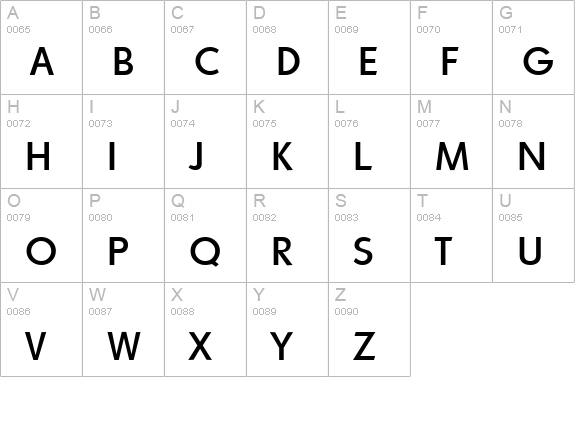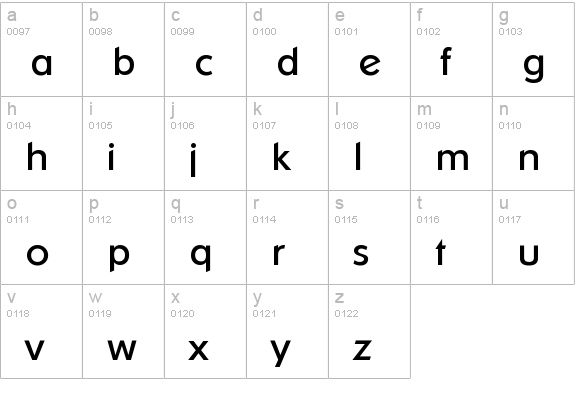
Sharnay Regular is the standard, neutral variant in the Sharnay typeface family \xE2\x80\x94 well suited to general body text, paragraphs, and standard typographic work.
Introducing Sharnay Regular font - a delightful and versatile typeface that combines elegance with a touch of modernity. With its clean lines and graceful curves, Sharnay Regular is the perfect choice for any design project that requires a touch of sophistication. This font's timeless appeal makes it suitable for a wide range of applications, such as branding, logo design, editorial design, invitations, and much more. Its versatility allows it to seamlessly adapt to various design styles, from classic and vintage to contemporary and minimalist. What makes Sharnay Regular even more extraordinary is that it is available for free! Yes, you read that right. This exquisite font can be freely downloaded at FontsMarket.com, a trusted source for high-quality fonts. By offering Sharnay Regular for free, the creators behind this font have made it accessible to a larger audience, ensuring that designers, both professional and amateur, can elevate their projects without any financial constraints. But don't let the price fool you. Sharnay Regular is not just another free font. Its meticulous craftsmanship and attention to detail make it comparable to premium fonts available on the market. Its legibility and readability remain unparalleled, even at smaller sizes. So, why settle for less when you can have Sharnay Regular? Download it for free from FontsMarket.com and embark on a design journey that exudes elegance, sophistication, and creativity. Let this font be the perfect companion for your next design endeavor, and watch as your creations come to life with a touch of timeless beauty.